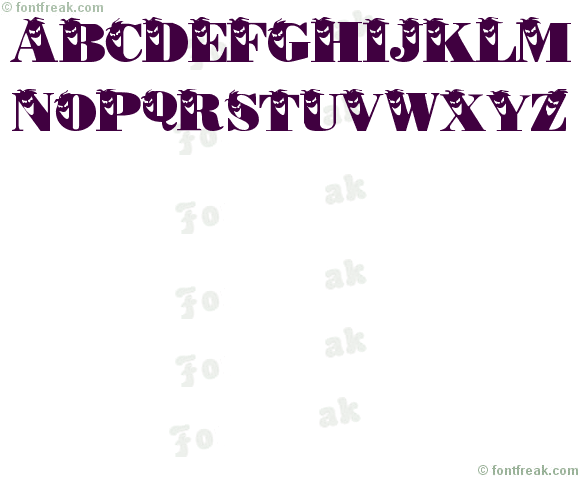
PhilliBoo
About Philli Boo
Philli Boo by Lime is a captivating display font that exudes a playful yet elegant charm, making it a delightful choice for various creative projects. This decorative font features a unique blend of whimsical curves and bold strokes, showcasing a medium stroke weight that strikes a perfect balance between readability and artistic flair. The letterforms have a gentle contrast, where the rounded edges and flowing lines create a sense of warmth and friendliness. The spacing is thoughtfully designed to ensure clarity while maintaining an inviting aesthetic, making it suitable for a range of applications.
Ideal for wedding invitations, Philli Boo brings a touch of romance and individuality, allowing couples to express their unique style on their special day. Its playful character also makes it a fantastic choice for children's book covers or educational materials, where engaging visuals are essential. The font can enhance restaurant menus, conveying a fun yet sophisticated atmosphere that invites patrons to explore the offerings. Additionally, it's well-suited for movie posters, particularly in genres that embrace creativity and whimsy, drawing audiences in with its distinctive look.
What sets the Philli Boo font apart is its ability to blend artistic flair with functionality, making it a versatile choice for both formal and informal applications. Its unique character and approachable style ensure that it stands out in any design, capturing attention and leaving a lasting impression. Don’t miss the opportunity to elevate your projects with the Philli Boo font free download, and let your creativity flourish.